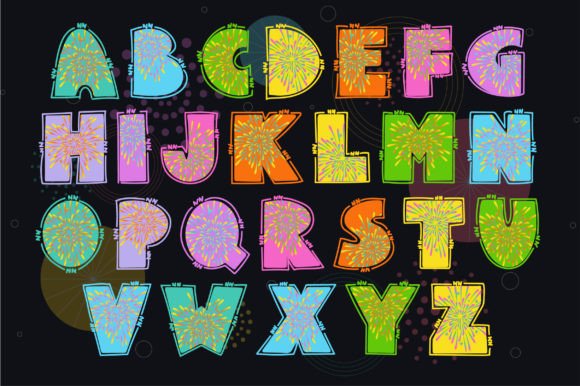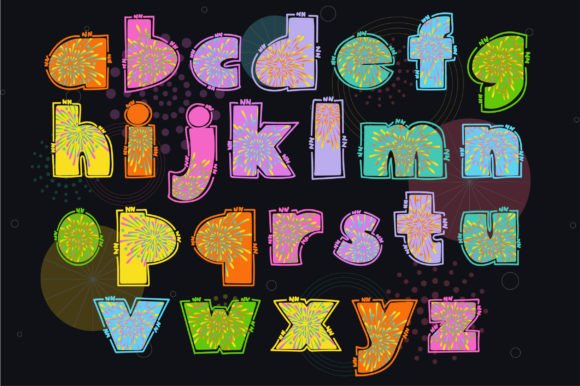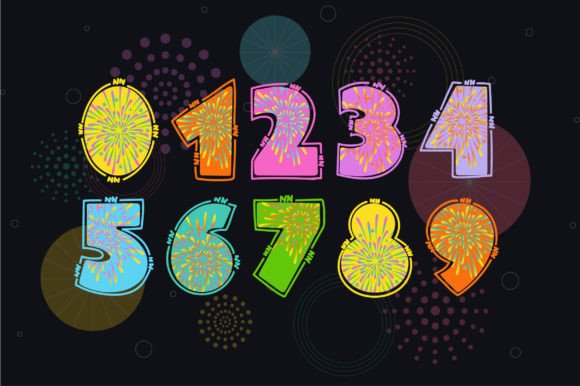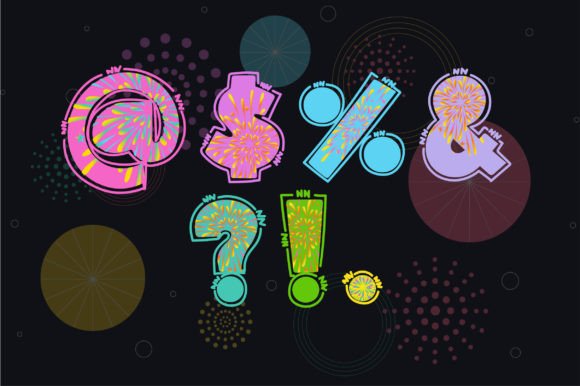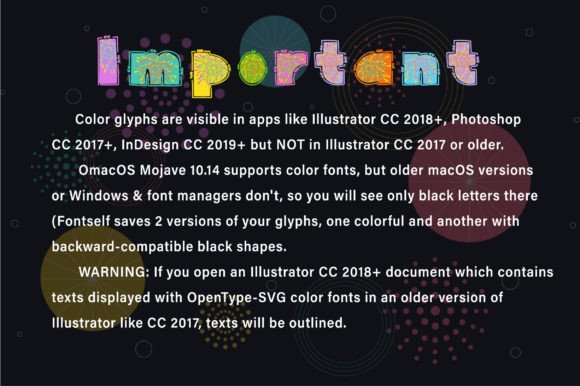
Introducing the Vibrant World of Colorful Fireworks Font
Are you looking for a font that embodies the spirit of celebration and festivity? Look no further than the Colorful Fireworks Font, a vibrant and playful typeface that is sure to add a pop of color and excitement to any design project. This font is perfect for designers and crafters who want to create materials that convey a sense of fun, joy, and celebration.
The Inspiration Behind Colorful Fireworks Font
The Colorful Fireworks Font is designed to capture the magic and wonder of fireworks on a festive night sky. The font is adorned with a pattern of colorful and beautiful fireworks, making it a unique and eye-catching addition to any design. The inspiration behind this font is to evoke the feelings of joy, excitement, and celebration that come with watching fireworks light up the sky on special occasions.
Design Features of Colorful Fireworks Font
The Colorful Fireworks Font is a bold and colorful typeface that features a range of design elements, including:
- Colorful Fireworks Pattern: The font features a beautiful pattern of colorful fireworks that adds a playful and festive touch to any design.
- Bold and Playful Letters: The letters in the Colorful Fireworks Font are bold, playful, and full of personality, making them perfect for headlines, titles, and other design elements.
- Festive and Celebratory Feel: The font has a distinctly festive and celebratory feel, making it perfect for designs that require a sense of excitement and joy.
Uses for Colorful Fireworks Font
The Colorful Fireworks Font is a versatile typeface that can be used in a wide range of design applications, including:
- Cards and Invitations: The font is perfect for creating colorful and festive cards and invitations for special occasions like birthdays, weddings, and holidays.
- Posters and Flyers: The bold and playful letters in the Colorful Fireworks Font make it ideal for creating eye-catching posters and flyers for events and celebrations.
- Fabric and Textile Design: The font can be printed on fabric, making it perfect for designing colorful and festive textiles, such as scarves, tote bags, and other home decor items.
- Digital Designs: The Colorful Fireworks Font can also be used in digital designs, such as social media graphics, blog posts, and website headers.
Why Choose Colorful Fireworks Font?
There are many reasons why designers and crafters might choose the Colorful Fireworks Font for their projects, including:
- Unique and Eye-Catching Design: The font’s colorful and playful design makes it a standout choice for designers who want to create materials that grab attention.
- Festive and Celebratory Feel: The font’s festive and celebratory feel makes it perfect for designs that require a sense of excitement and joy.
- Versatility: The Colorful Fireworks Font can be used in a wide range of design applications, from cards and posters to digital designs and fabric.
| Font Name | Colorful Fireworks Font |
| Author | NN-Font Design |
The Colorful Fireworks Font is a vibrant and playful typeface that is sure to add a pop of color and excitement to any design project. With its bold and playful letters, colorful fireworks pattern, and festive and celebratory feel, this font is perfect for designers and crafters who want to create materials that convey a sense of fun, joy, and celebration. Whether you’re designing cards, posters, or digital graphics, the Colorful Fireworks Font is a great choice for any project that requires a little extra sparkle and excitement.